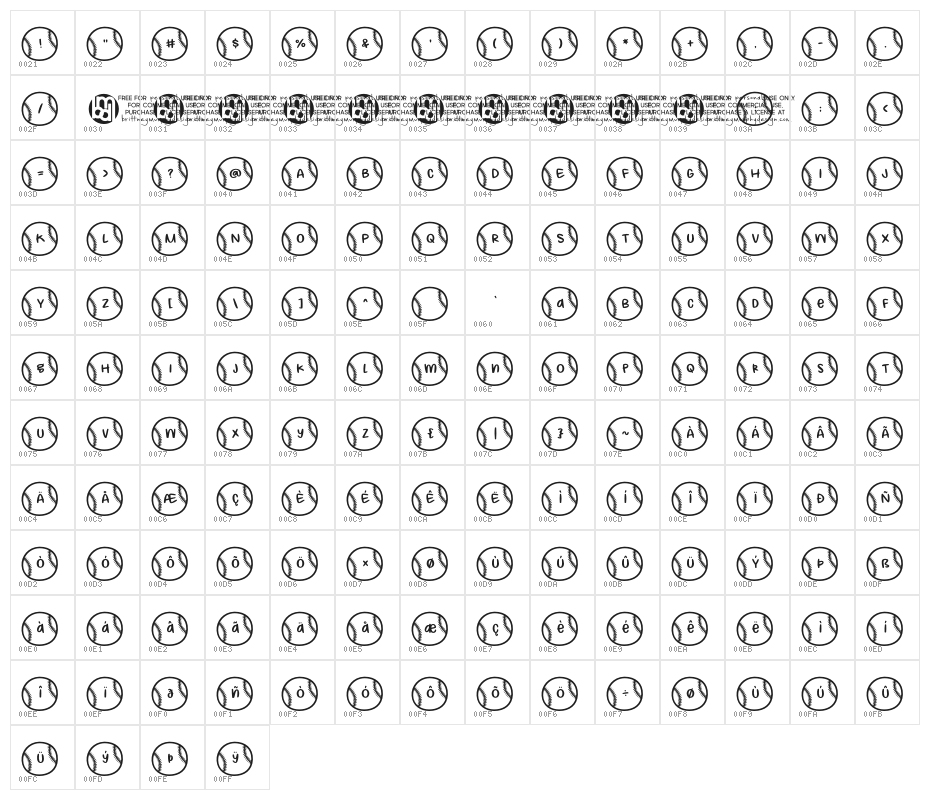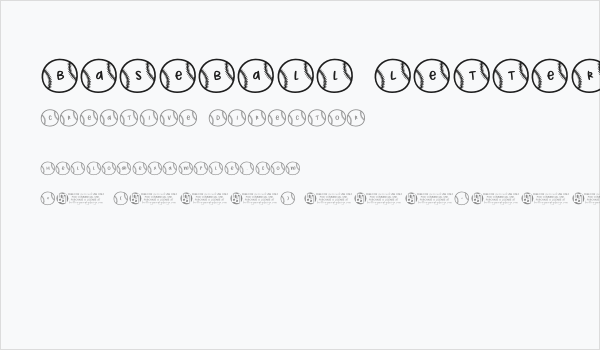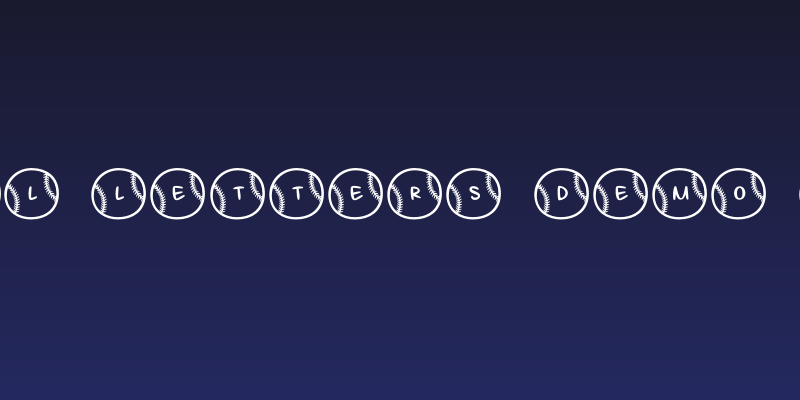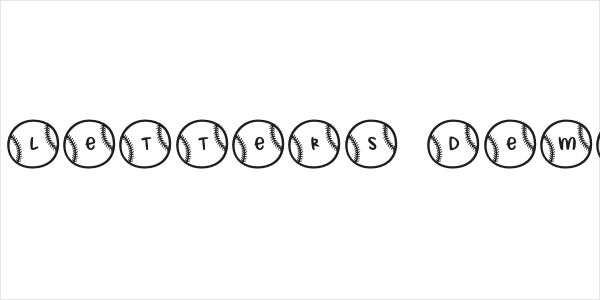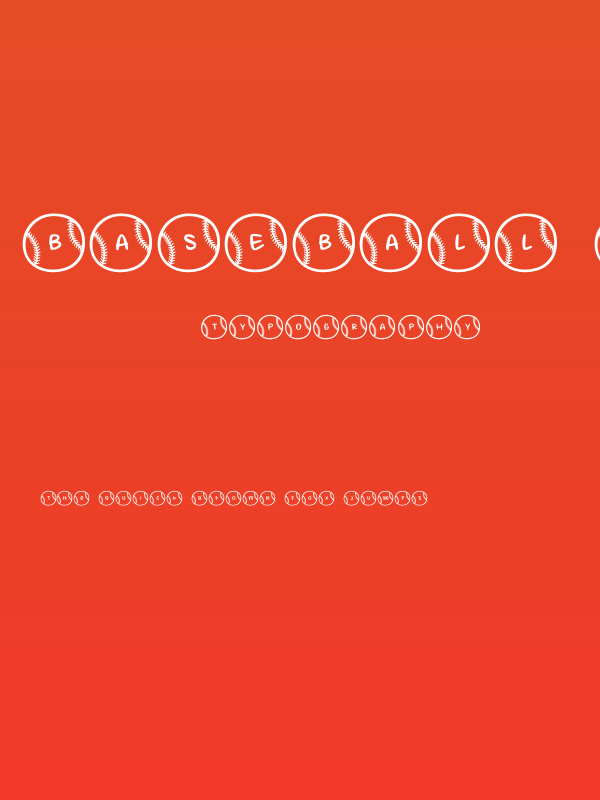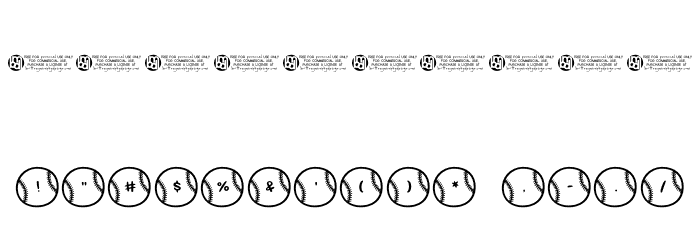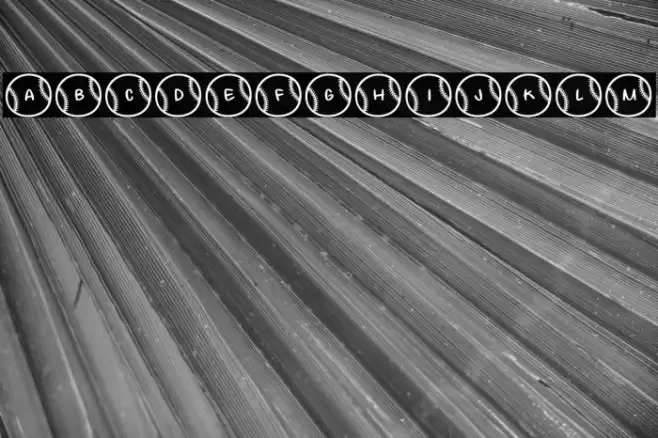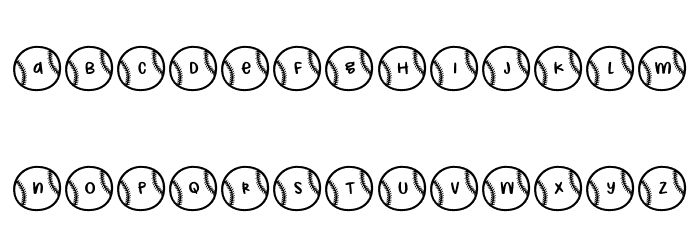
Baseball Letters Demo Regular Font
Baseball Letters Demo Regular Description
This playful and thematic font features letters and numbers encased within baseball designs, complete with stitching details. Each character is centered within a circular baseball shape, giving a sporty and dynamic feel. The font is decorative and captures the essence of baseball, making it ideal for projects related to sports, especially baseball-themed events or merchandise. The characters are evenly spaced within their circular frames, maintaining a consistent and balanced appearance. The design is unique and eye-catching, perfect for creating a fun and engaging visual impact.
| Overall Style | Decorative |
| Use Case | Logos, Headlines, Themed designs |
| Proposed Projects | Sports event posters, baseball team merchandise, themed party invitations, children's books. |